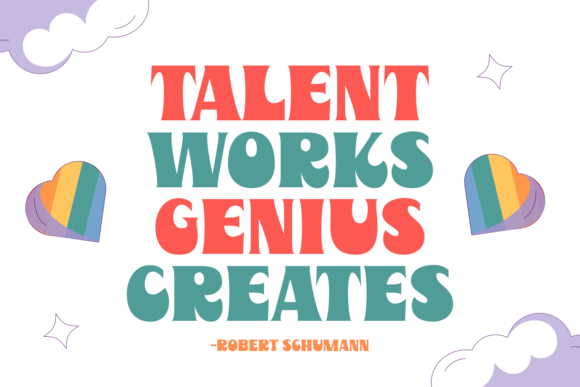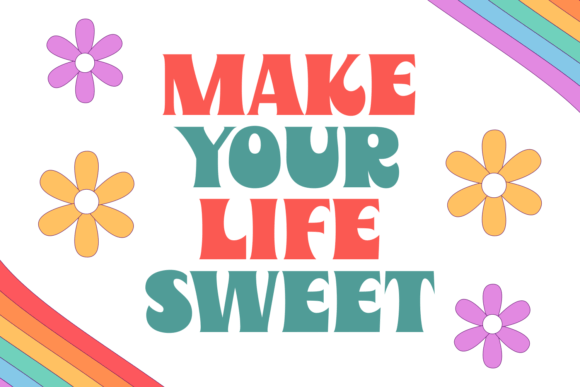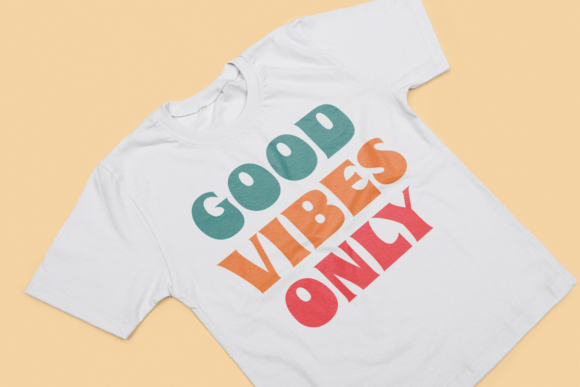
Introduction to Crishe Retro Font
As a designer, have you ever found yourself staring at a blank page, searching for the perfect font to bring your creative project to life? You’ve scrolled through countless options, but nothing seems to capture the essence of your vision. That’s where the Crishe Retro Font comes in – a delightful, chunky display font that’s sure to add a touch of joy and playfulness to your next design creation.
Key Features of Crishe Retro Font
- Unique blend of retro and modern elements, making it perfect for creative projects requiring a vintage touch.
- Includes a range of characters, including uppercase and lowercase letters, numbers, and punctuation marks, making it a versatile design resource.
- Designed to be highly legible, even at small font sizes, making it an excellent choice for creative projects requiring clear typography.
Honest Review: Crishe Retro Font
As a designer, I’m always on the lookout for high-quality design resources to elevate my creative projects. The Crishe Retro Font is one such resource that caught my attention, and I’m excited to share my honest review.
- ✨ The Crishe Retro Font has a unique, vintage aesthetic that adds a touch of nostalgia to any design project.
- ⚠️ The font’s design may not be suitable for projects requiring a more modern or minimalist aesthetic.
Overall, I’m impressed with the Crishe Retro Font’s unique design and high-quality performance. While it may have some limitations, it’s an excellent choice for designers looking to add a vintage touch to their creative projects.
Tips for Getting the Most Out of Crishe Retro Font
For a high-quality design, use the Crishe Retro Font with a transparent background and a high-resolution image. Experiment with different font sizes and colors to achieve the desired look.
The Crishe Retro Font is ideal for creative projects that require a vintage or retro aesthetic. Use it for logos, social media graphics, posters, and other design elements that need a unique and eye-catching look.
What makes the Crishe Retro Font a high-quality design resource?
The Crishe Retro Font is designed to be a high-quality design resource for creative projects. Its unique retro aesthetic and crisp typography make it perfect for a variety of applications, from branding and advertising to editorial and entertainment design. With its high-quality design and transparent background, it’s an excellent addition to any designer’s toolkit.